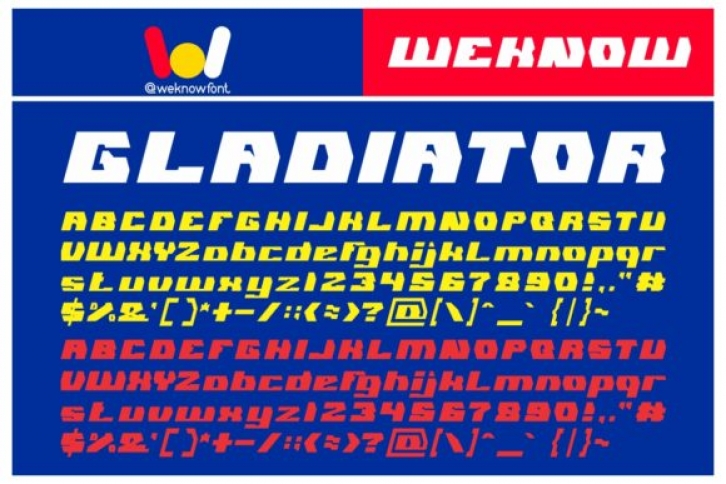
Gladiator is a bold and sporty display font. It uses unique shapes to make up its characters. Its abstract and assertive style will bring each of your designs to life!